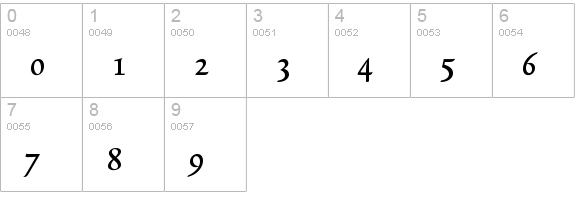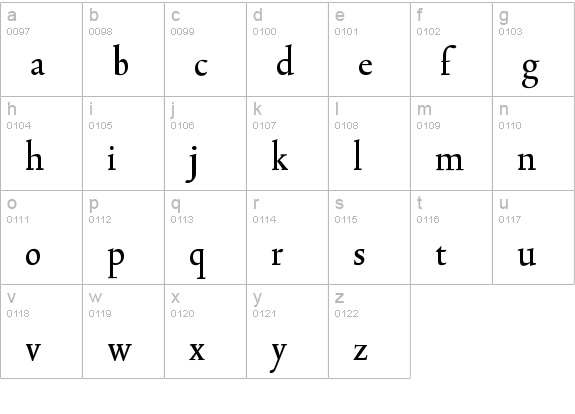
TriniteNo3-MediumCond font is a stunning typeface that exudes elegance and sophistication. It combines the perfect balance of modernity and classical charm, making it a versatile choice for various design projects. The medium condensed style of this font adds a touch of sleekness, making it ideal for both headlines and body text. This font features clean lines and refined curves, creating a harmonious visual experience. Its legibility is impeccable, ensuring that your message is easily conveyed to your audience. Whether you are designing a logo, creating a brochure, or working on a website, TriniteNo3-MediumCond font will effortlessly elevate your design to new heights. One of the best things about TriniteNo3-MediumCond font is that it is freely available to download at FontsMarket.com. You can access this exceptional typeface without any cost, making it a valuable addition to your font collection. Its availability on FontsMarket.com ensures that you can easily obtain this font and start using it in your projects right away. With TriniteNo3-MediumCond font, you have the freedom to explore your creativity and bring your design visions to life. Its versatility, elegance, and ease of use make it a must-have font for any designer or creative professional. Download TriniteNo3-MediumCond font today and unlock a world of possibilities for your design projects.